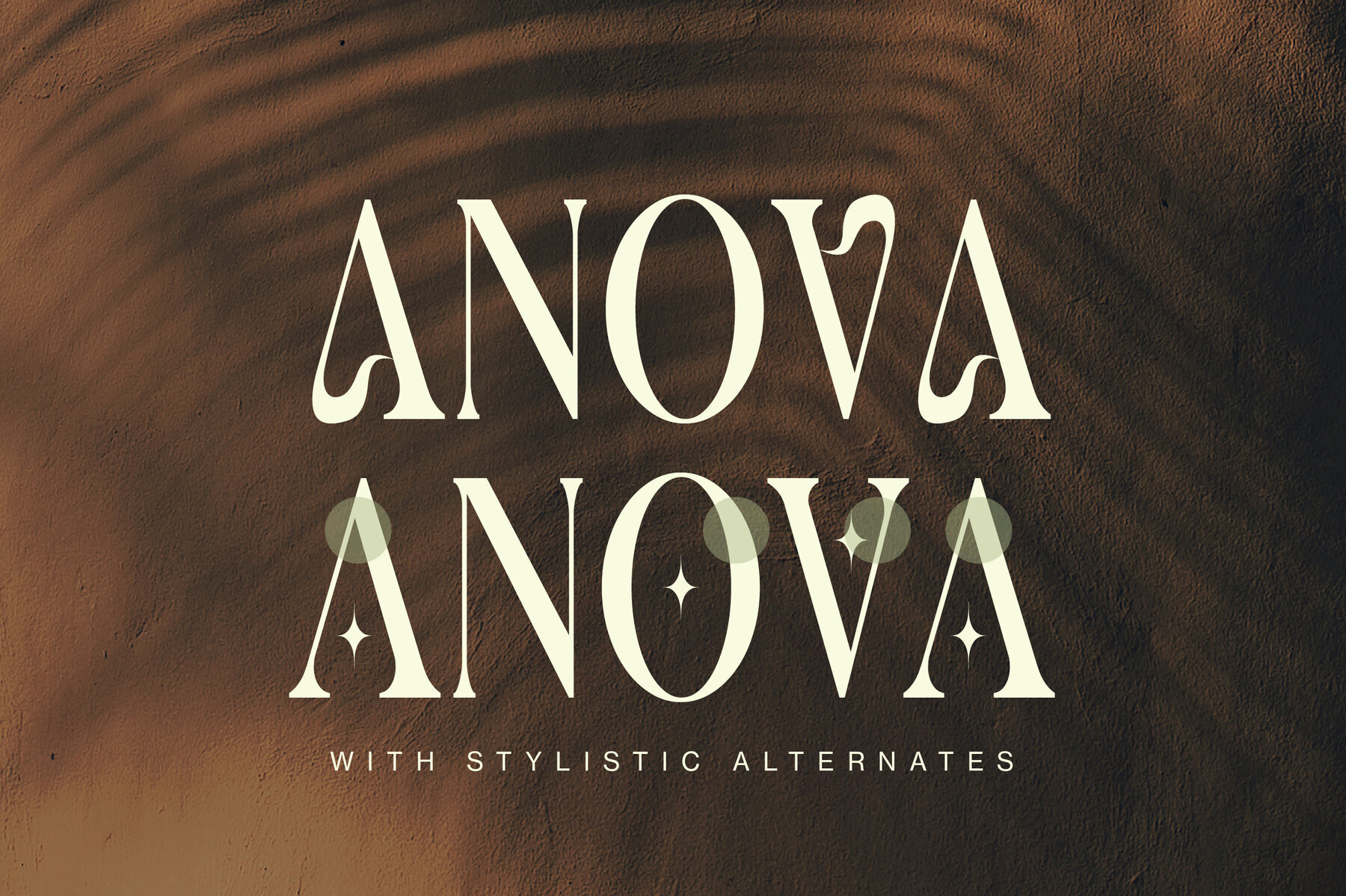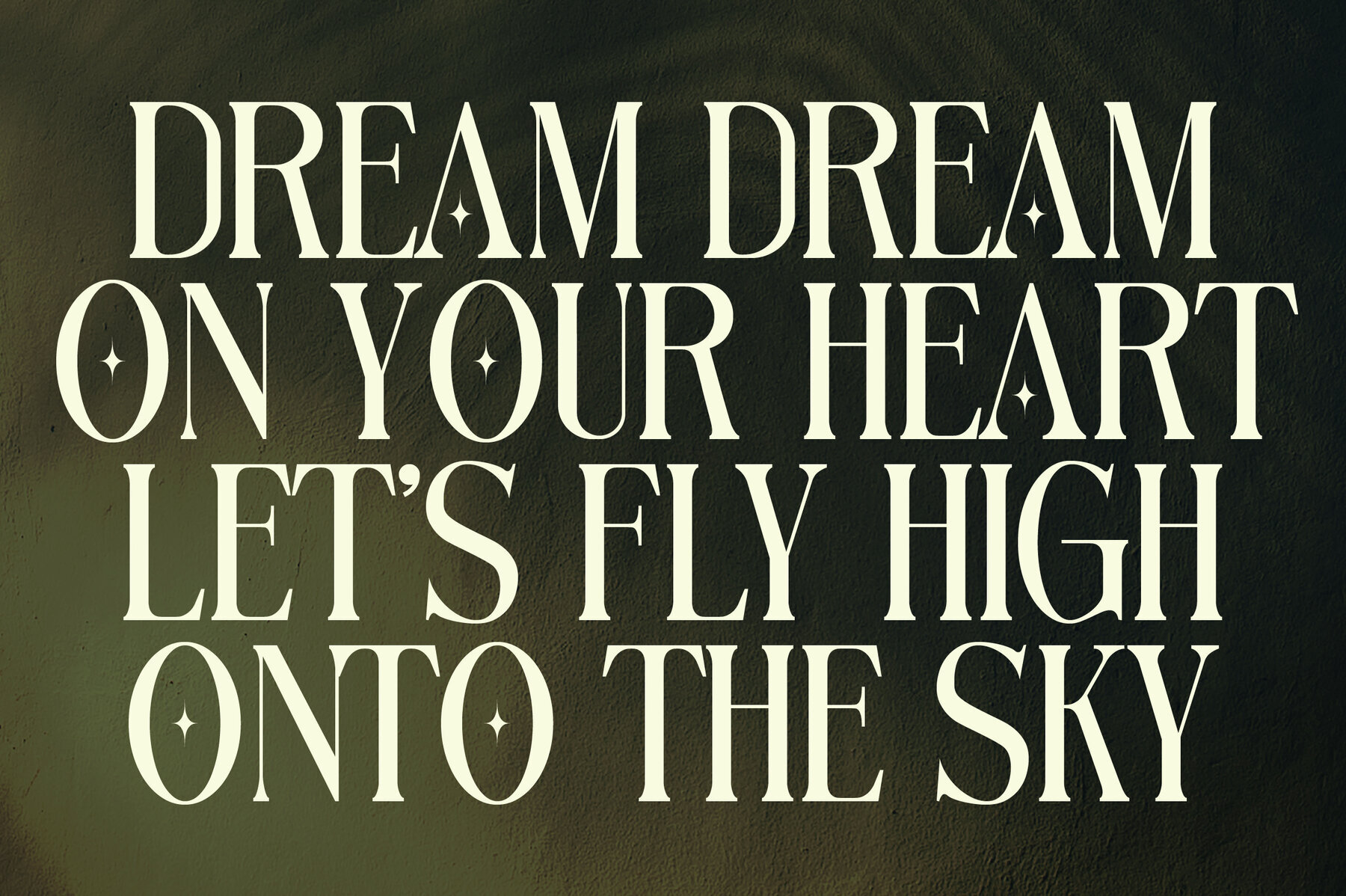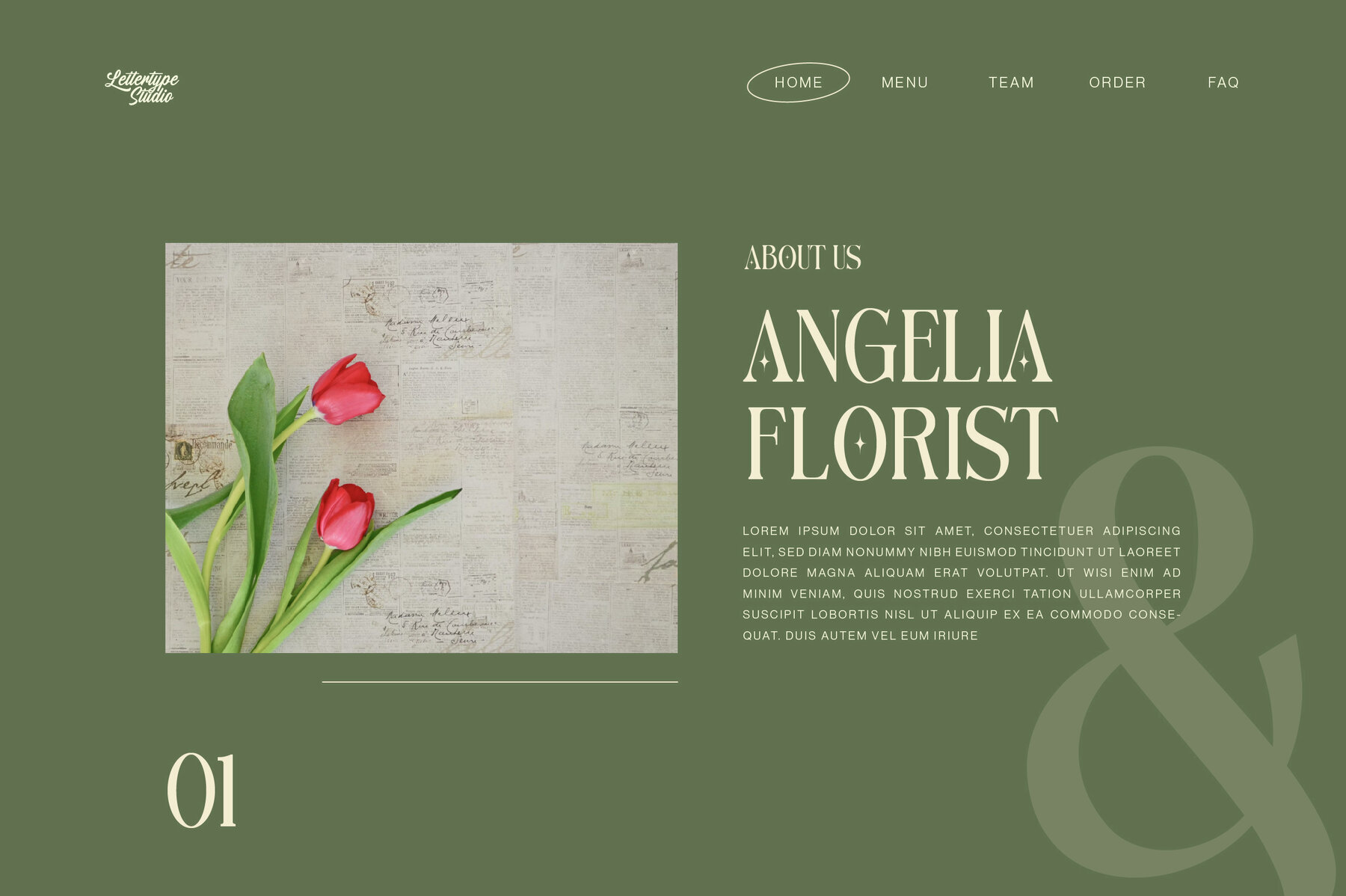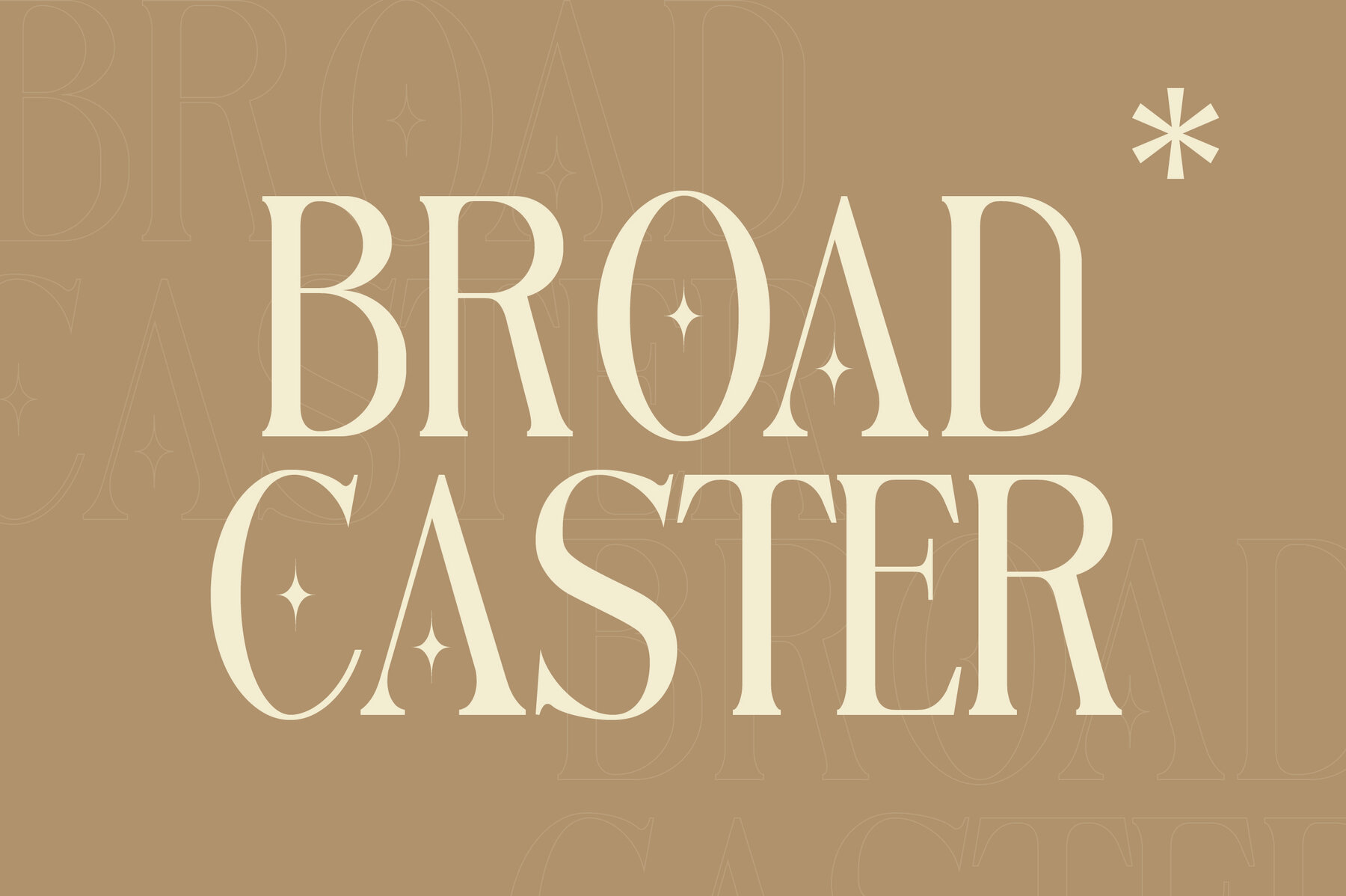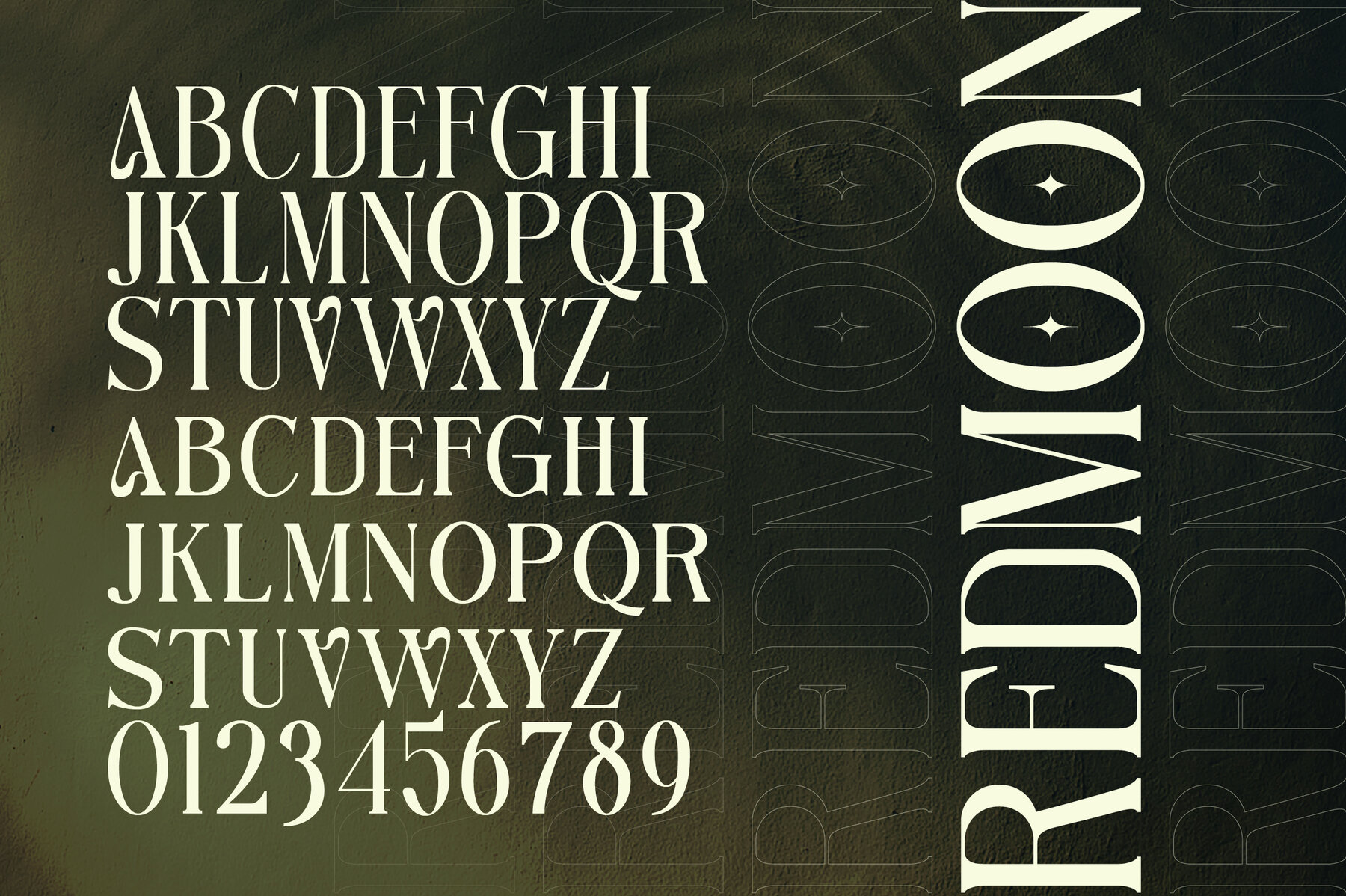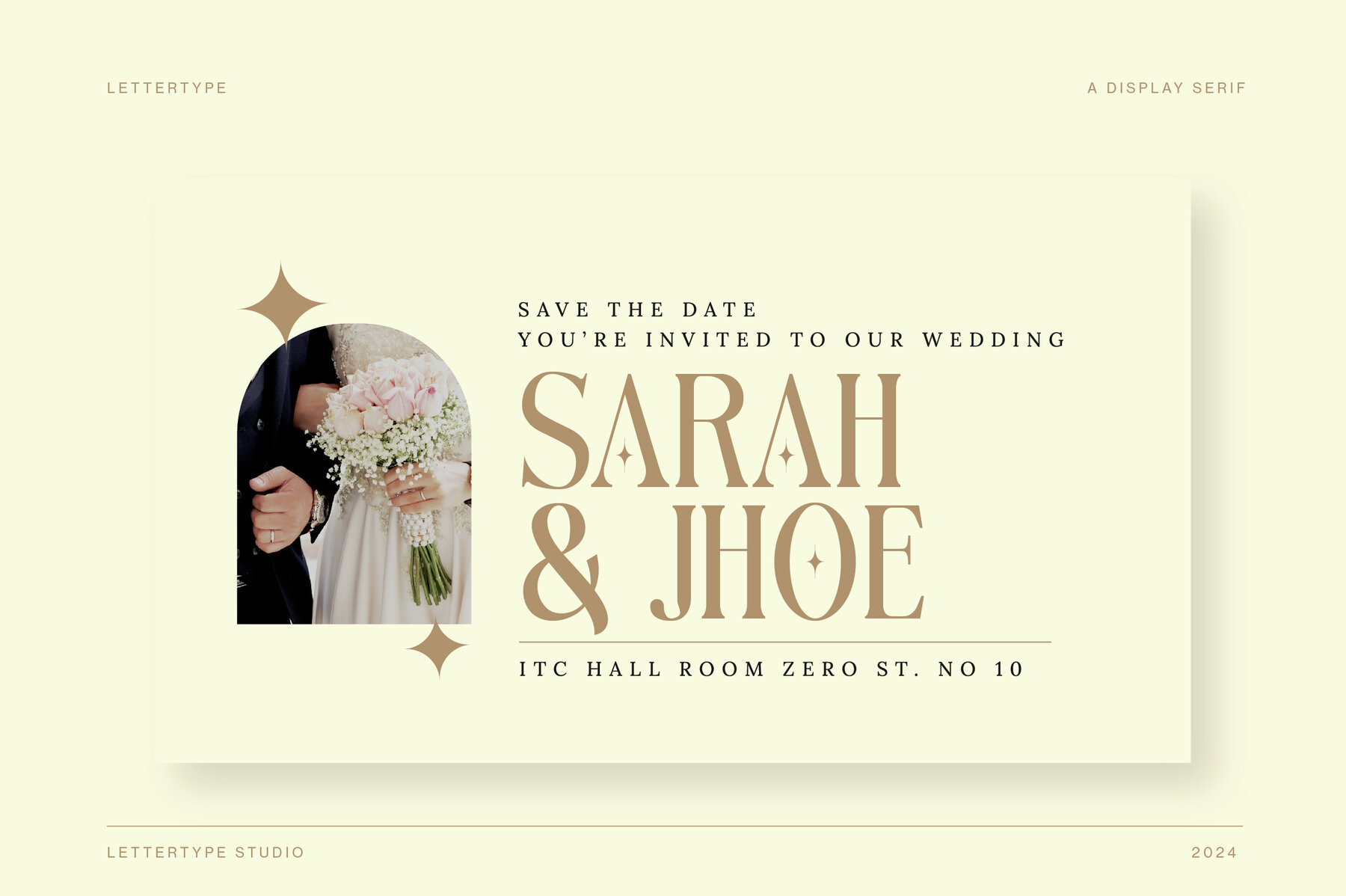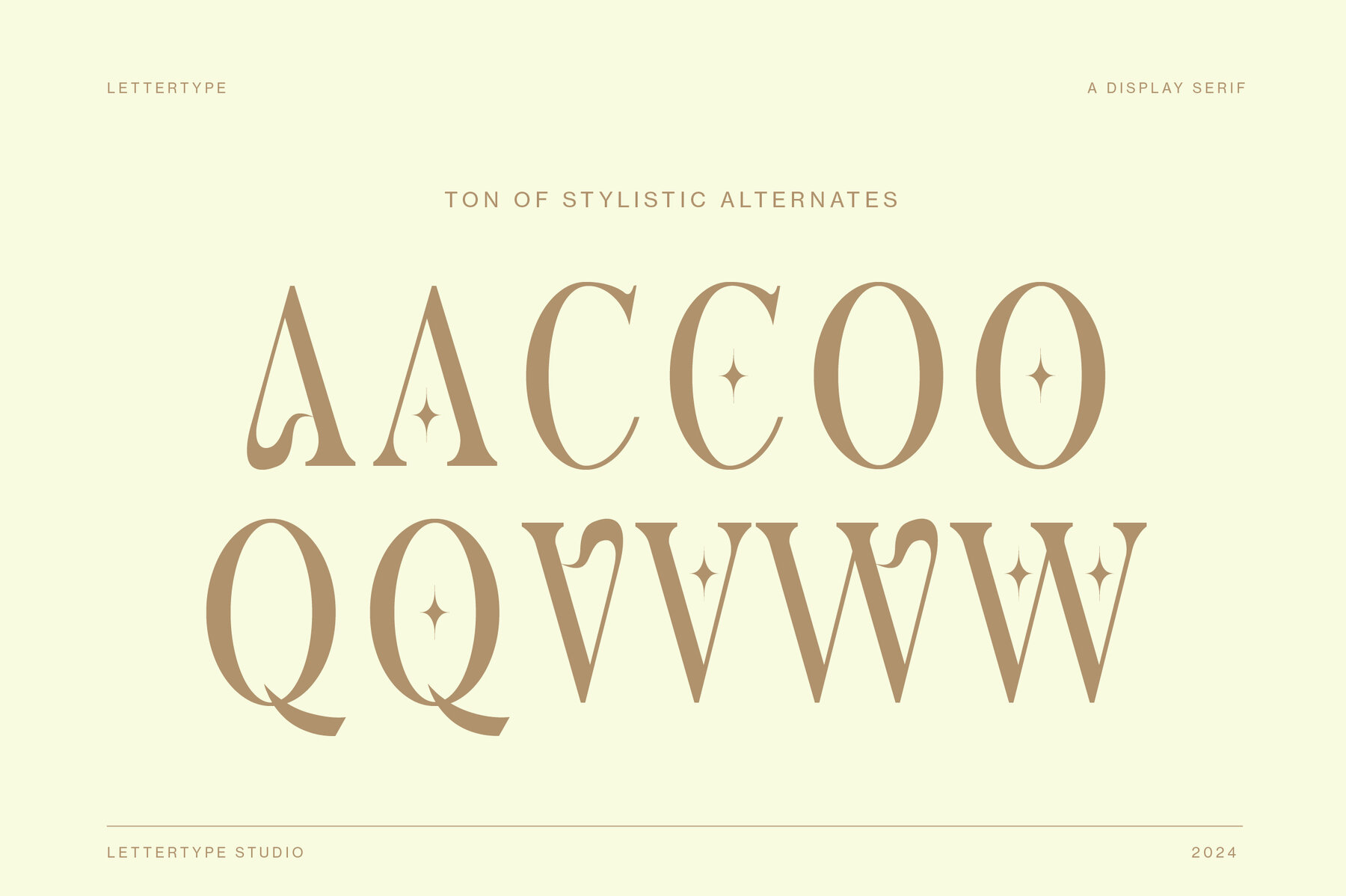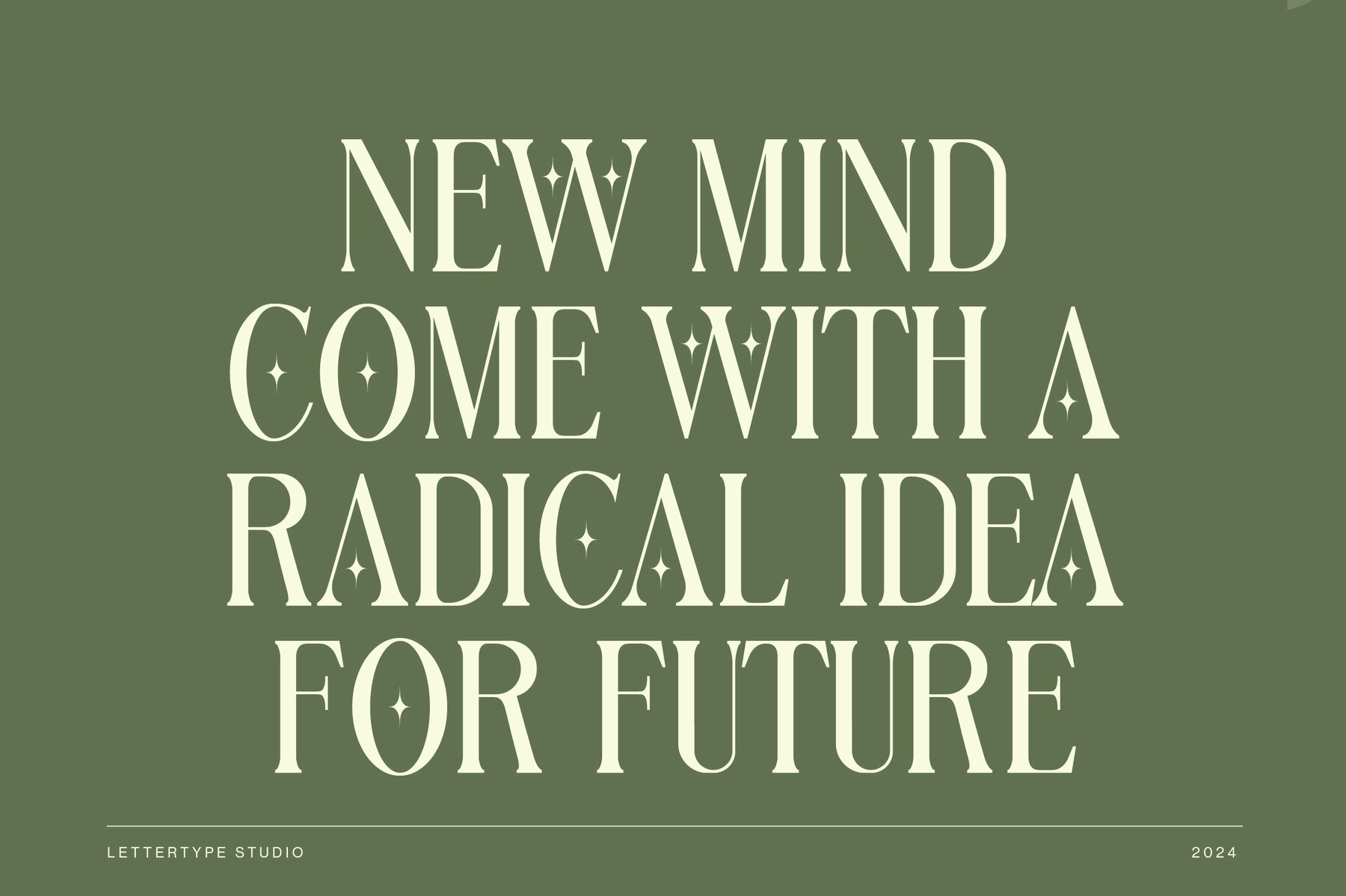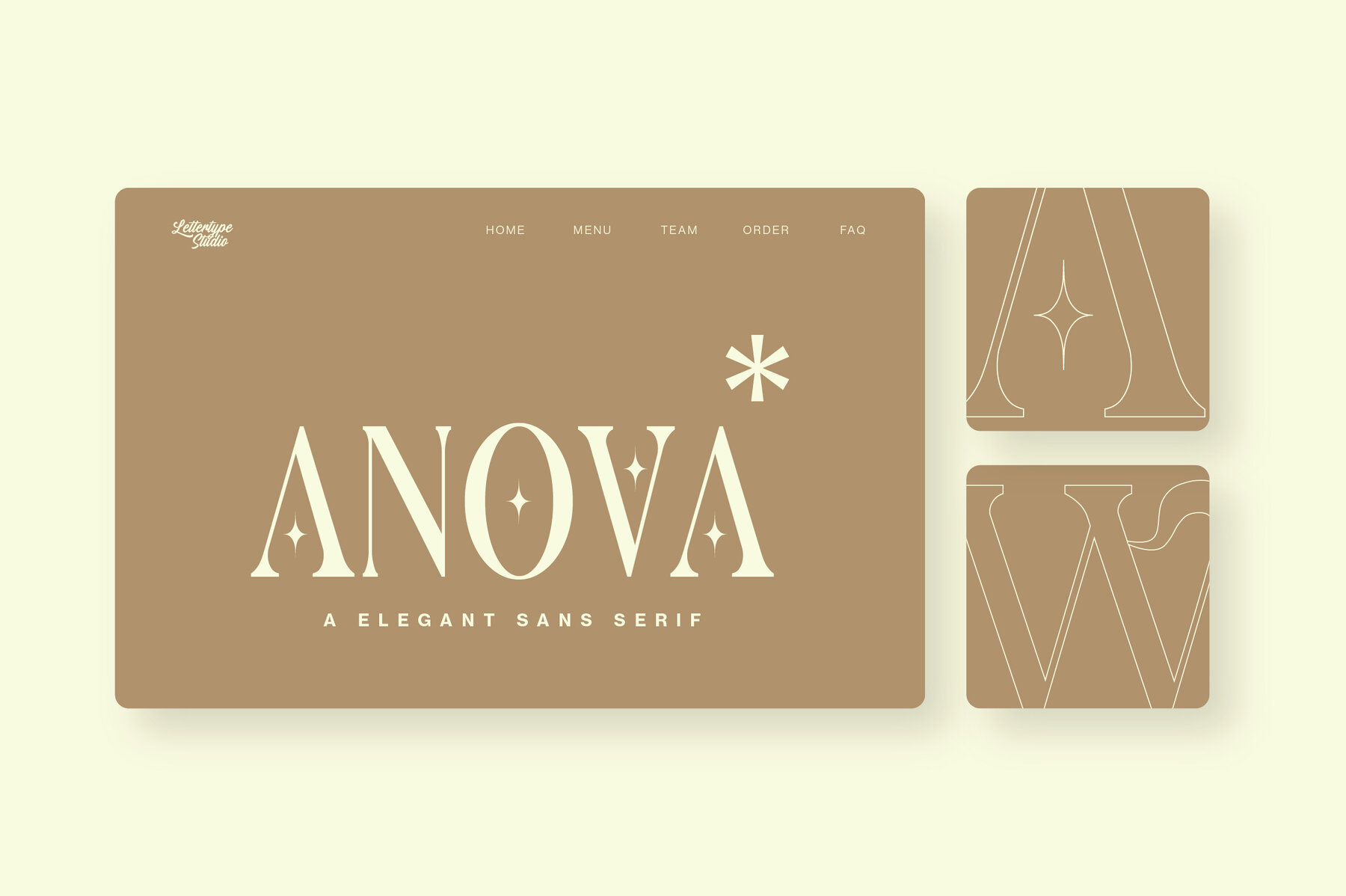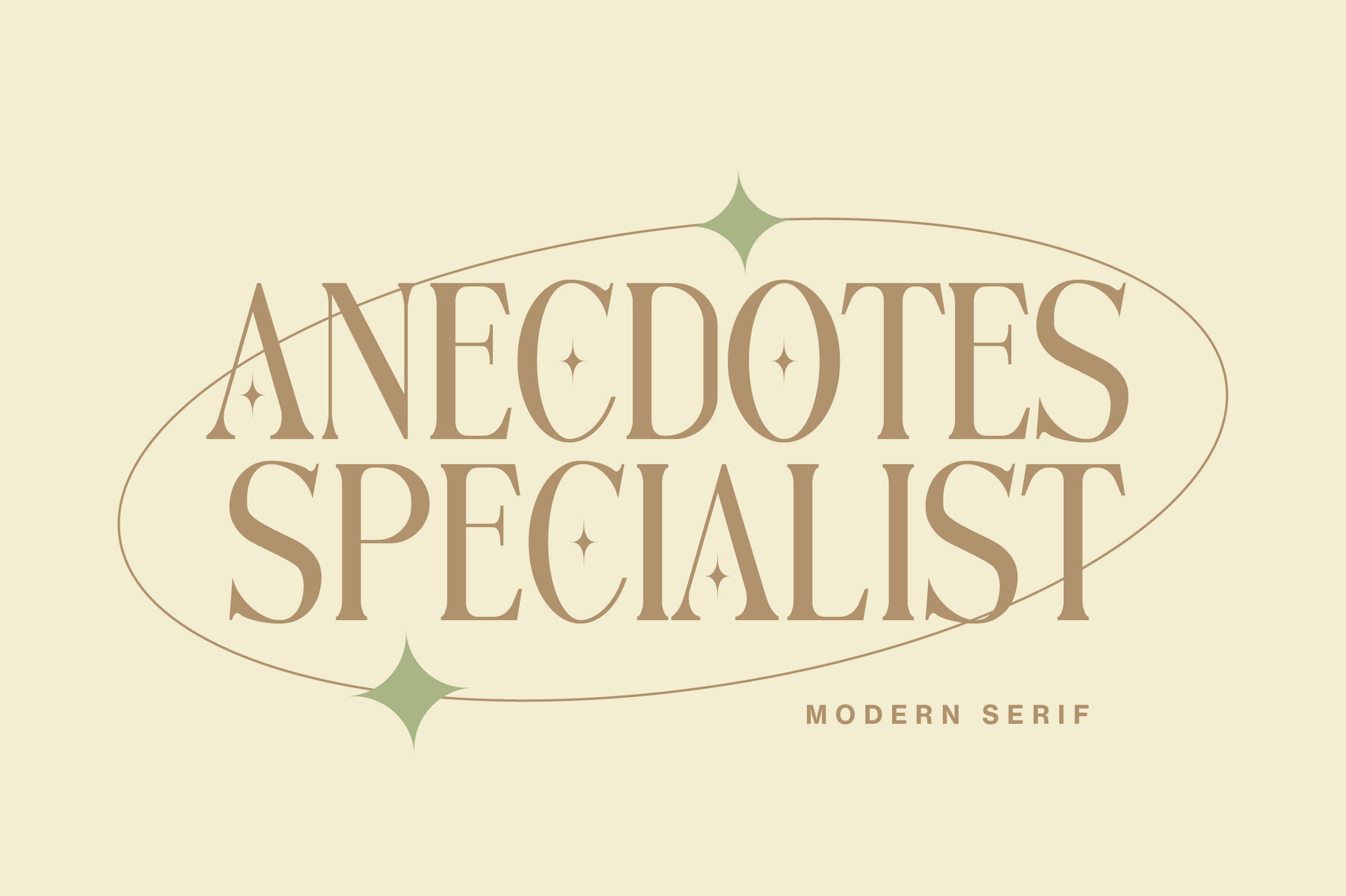
Anova Font
Anova Regular
Introducing Anova, a serif font that seamlessly blends elegance and modernity. Perfect for a variety of design projects, Anova brings a luxurious, classic touch to your logos, branding, clothing, and more. Its timeless feel makes it ideal for creating eye-catching signage, posters, wedding invitations, and enhancing cosmetic or fashion collections.Anova: The Elegant Modern Serif
Key Features of Anova